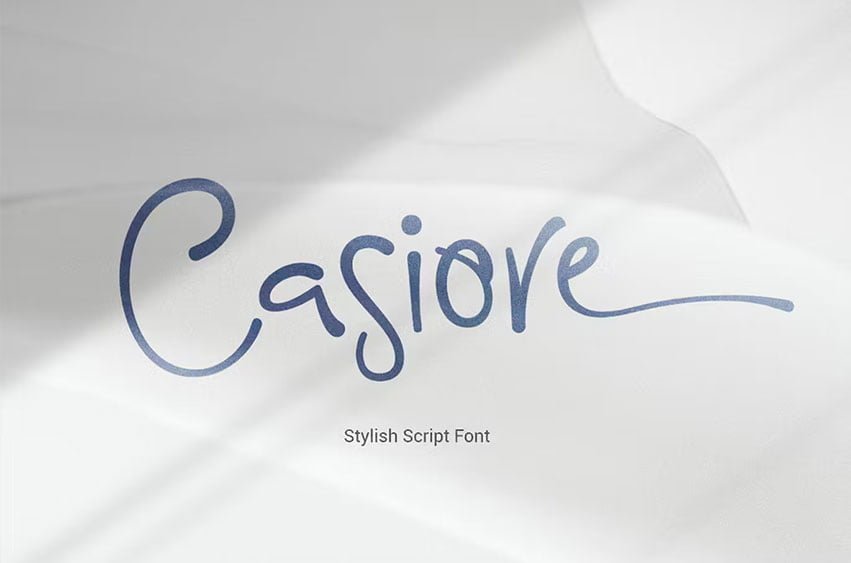
Casiore Font is an elegant handwritten font with a fun brush style. It has a light modern calligraphy look making it perfect for branding and digital designs. Casiore equipped with alternative glyphs and ligatures. The font is suitable for any graphic design such as quotes, logos, social media, websites, blogs, intitation cards, and more!
- light weight font
- Punctuation & Numeral
- Ligatures and alternates
- Glyphs included superscript & Symbol
- Currencies